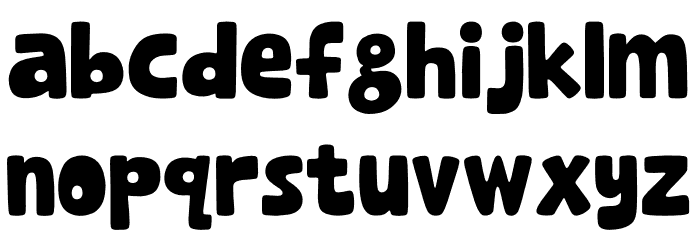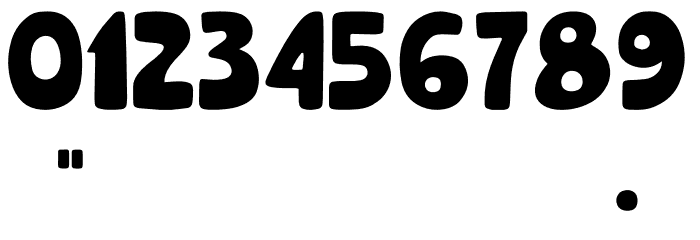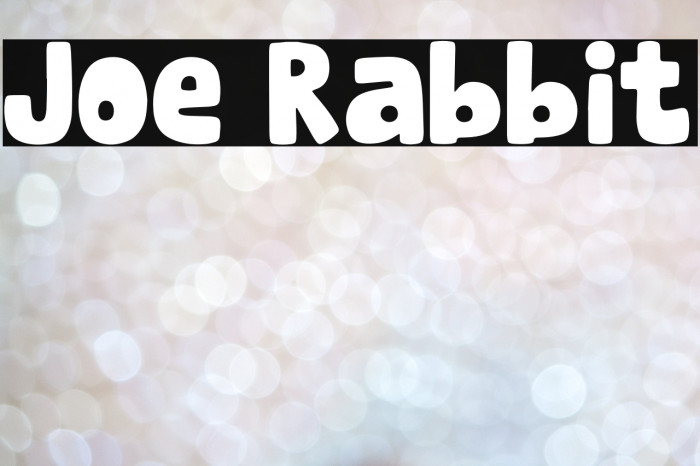
Joe Rabbit Font
This playful and bold font features rounded, thick characters with a whimsical touch. The letters are uniformly wide, giving a sense of balance and consistency. The uppercase and lowercase letters maintain a similar weight, contributing to a cohesive look. The numbers and special characters are designed to match the playful style, making them suitable for creative and informal projects. The overall appearance is friendly and approachable, with a touch of cartoonish charm that adds personality to any text.
A playful, bold font with rounded, thick characters and a whimsical style.
- Proposed Projects: Ideal for children's books, playful branding, posters, and creative projects.
- Overall Style: Playful, Cartoonish